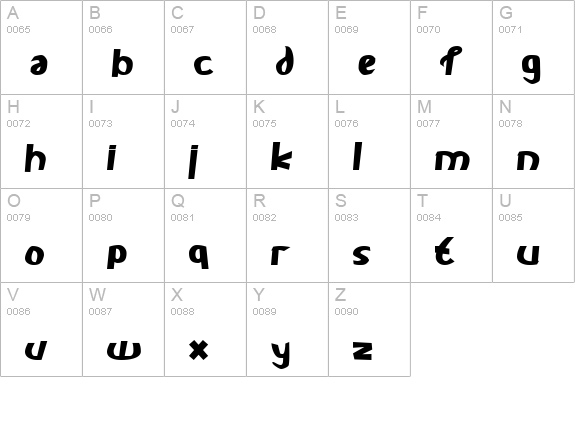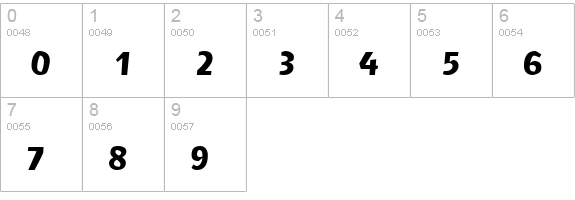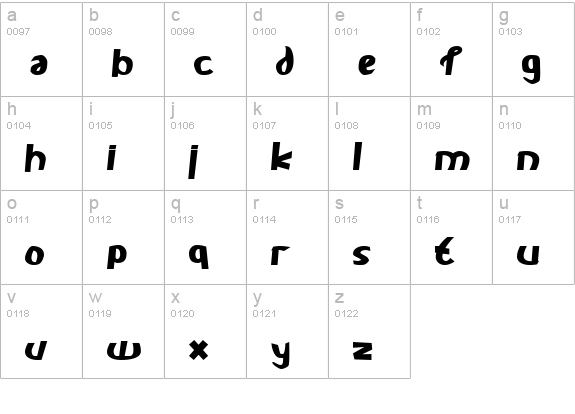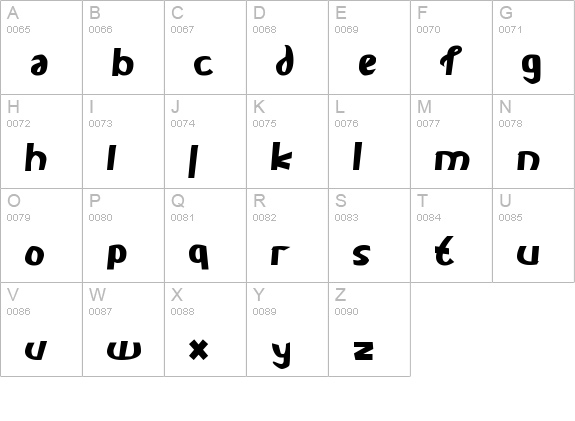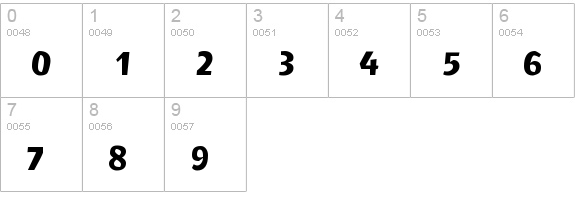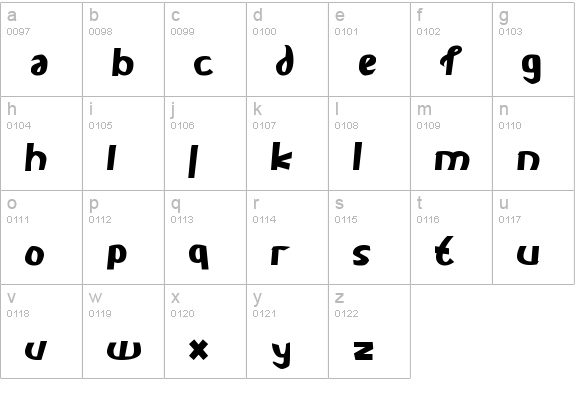
Carlie Bold Font Details
Carlie Bold is a strong, high-contrast variant in the Carlie typeface family \xE2\x80\x94 well suited to headlines, attention-grabbing titles, and strong calls-to-action.
Introducing Carlie Bold font, a stylish and modern typeface that exudes elegance and sophistication. This versatile font is perfect for a wide range of design projects, from branding to editorial design. With its bold and eye-catching appearance, Carlie Bold font is sure to make a statement and leave a lasting impression. What sets Carlie Bold font apart is its unique combination of sharp lines and smooth curves, creating a harmonious balance that is both visually appealing and easy to read. Whether used for headlines, logos, or body text, this font will add a touch of sophistication to any design. Best of all, Carlie Bold font is available for free download at FontsMarket.com. So why wait? Add a touch of elegance to your designs today with Carlie Bold font.